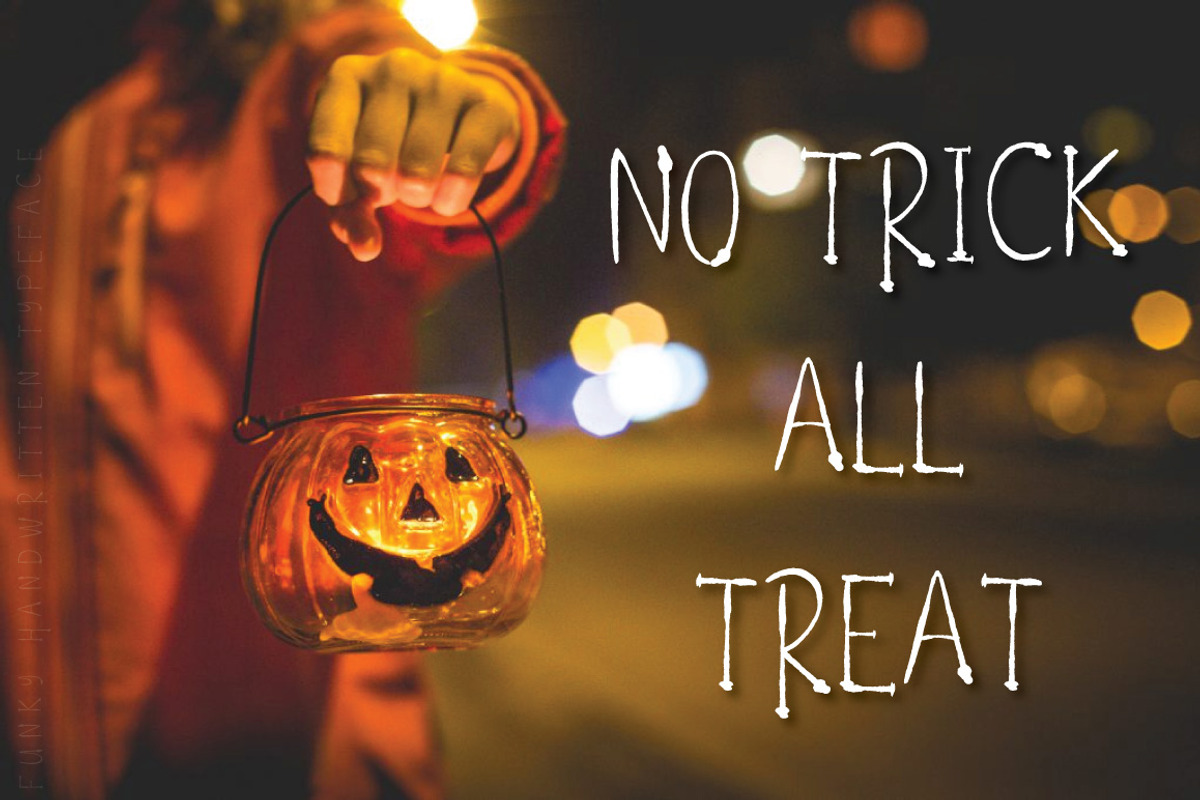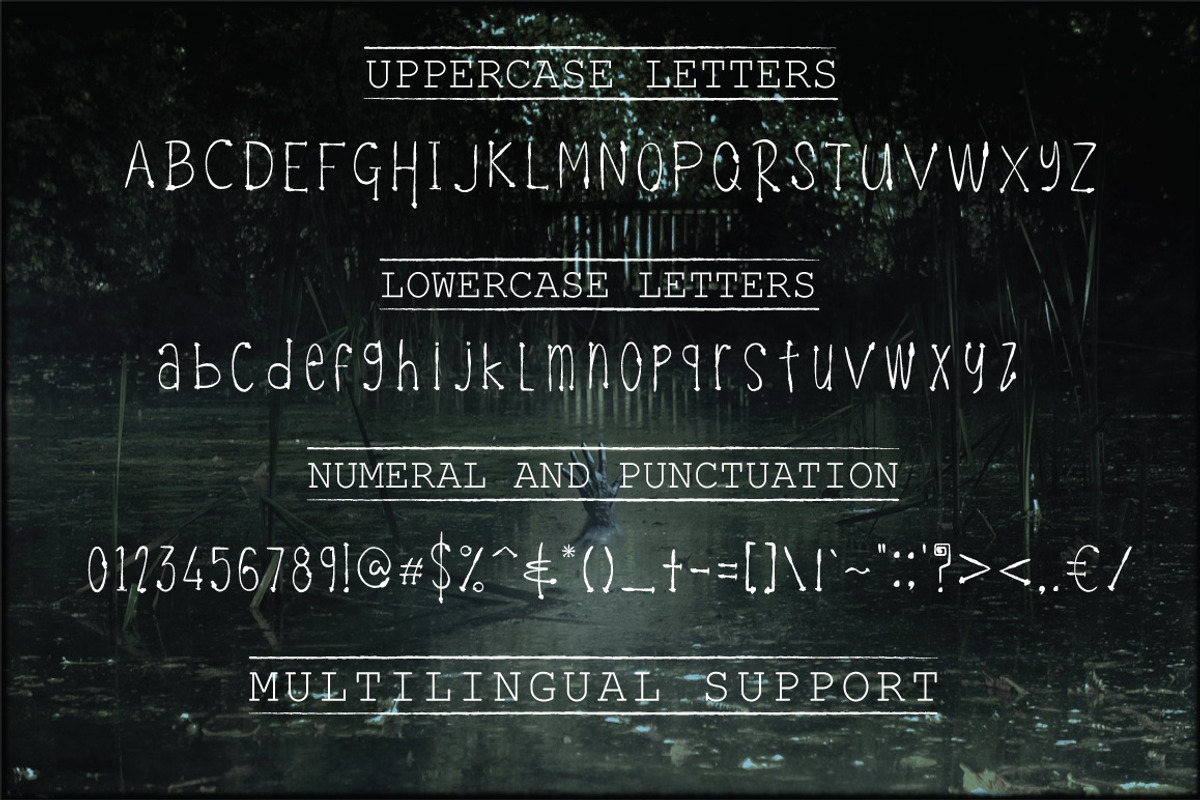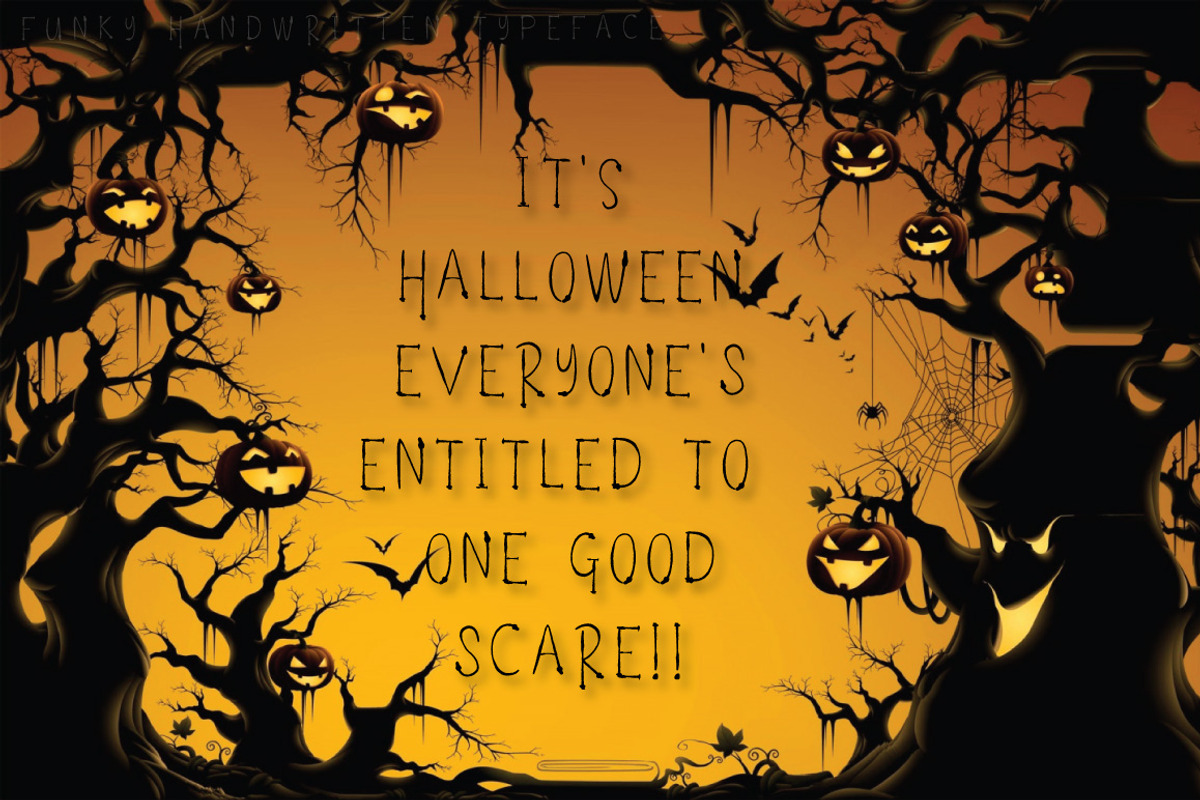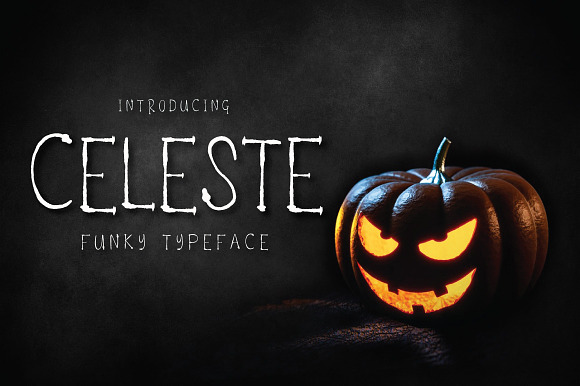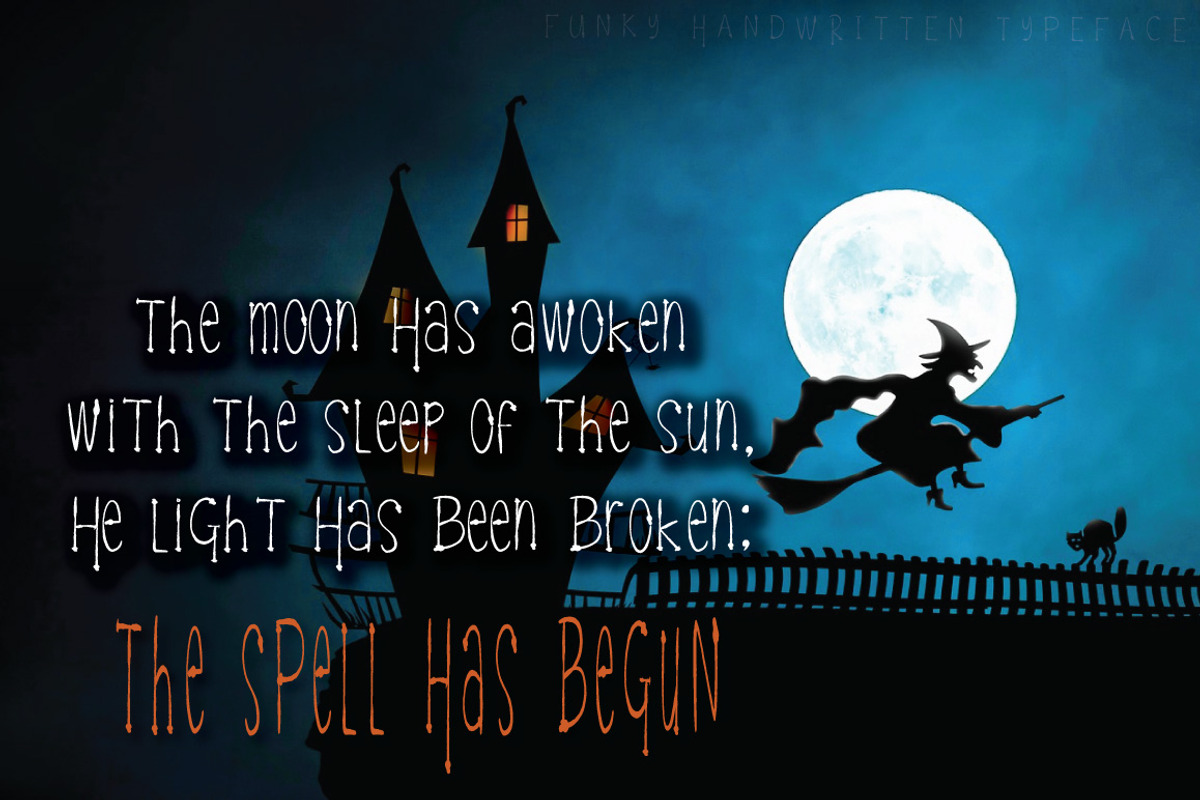
Celeste - Funky Typeface
Celeste OTF is a funky, creative, relaxed typeface great for invitations, logos, or anytime you need something funky.
- Capital and lowercase characters included along with multilingual support.
Celeste - Funky Typeface by Digital Hustler fits naturally into Branding, posters, packaging, typography.